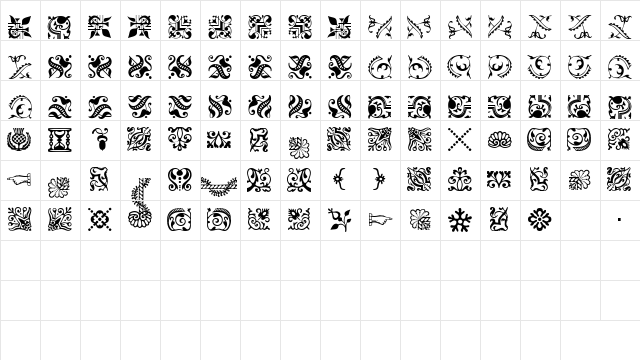
BordersOneSSi Regular Free Font
BordersOneSSi Regular
Design Context for BordersOneSSi
BordersOneSSi is a composed and adaptable typeface that performs quietly and consistently across a wide range of design contexts.